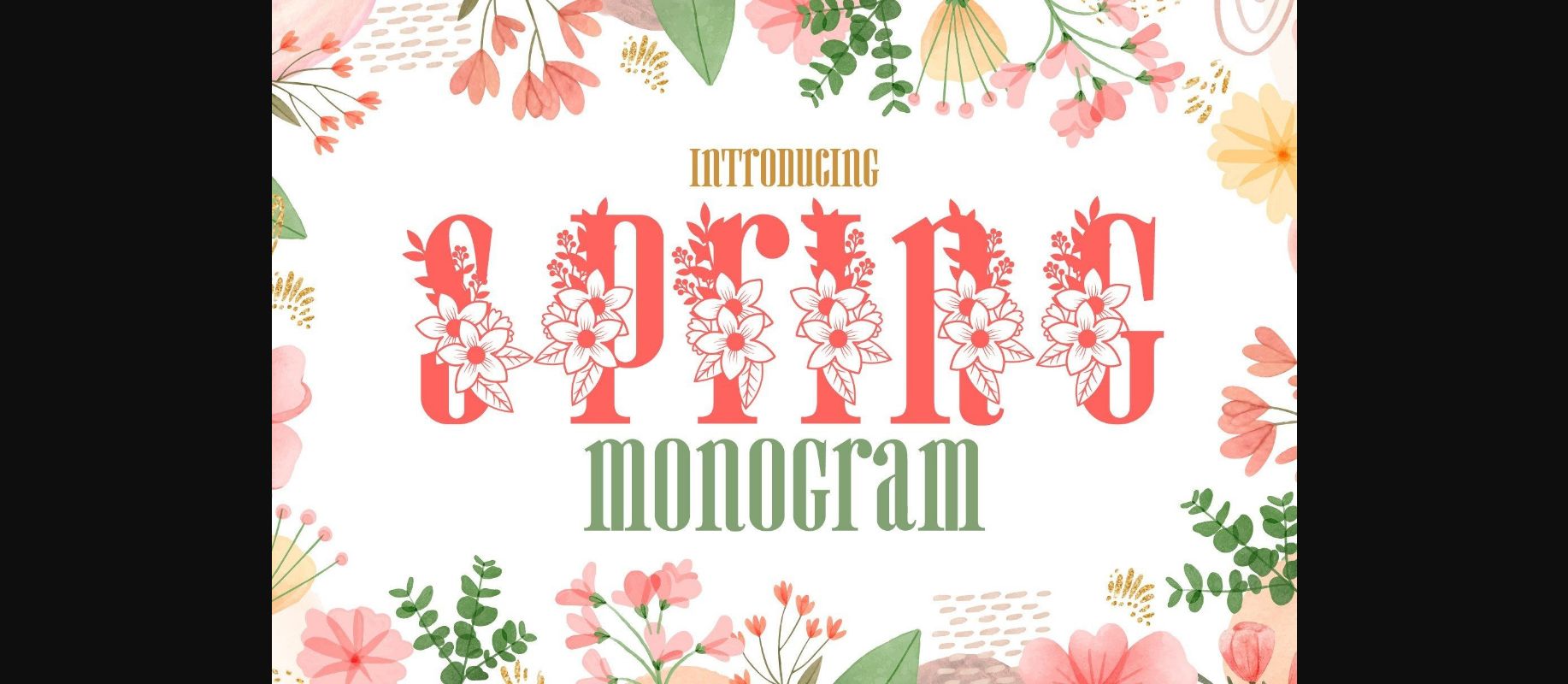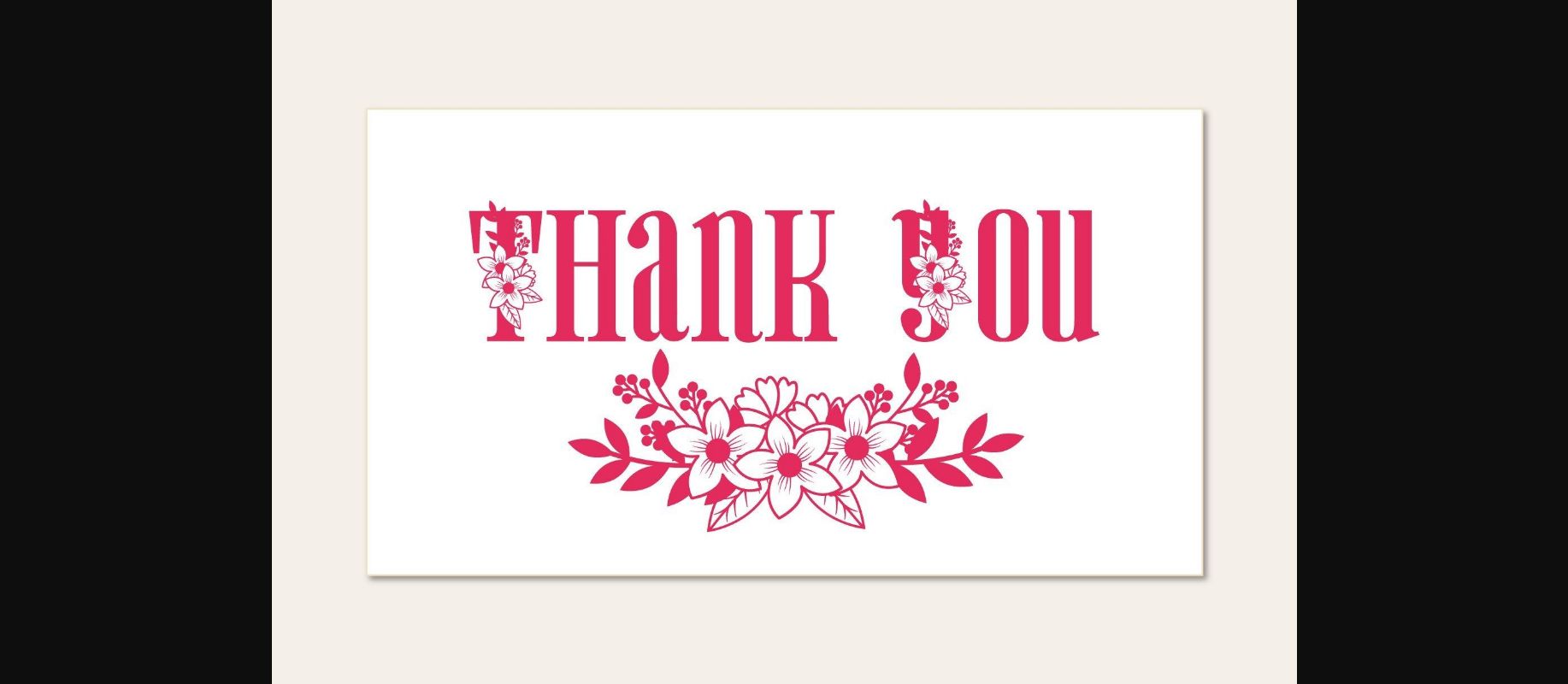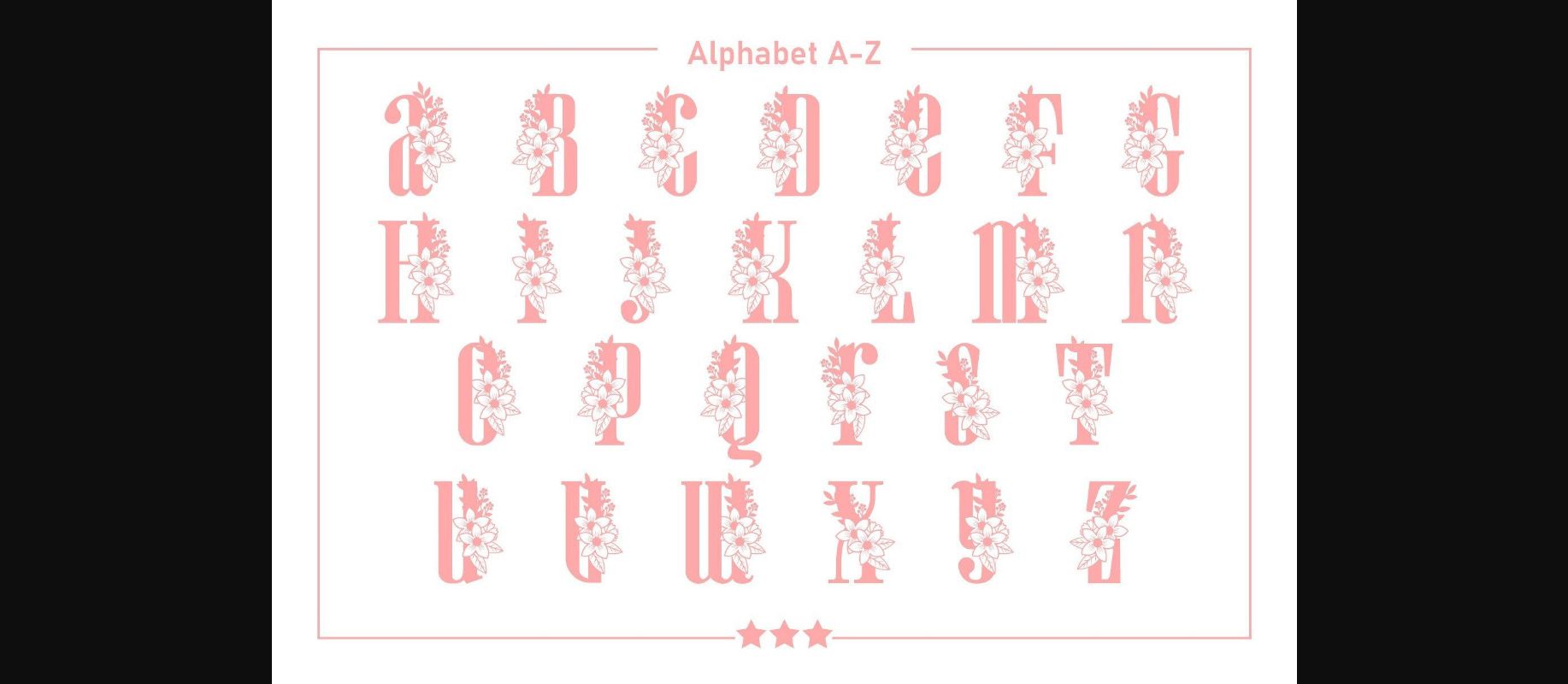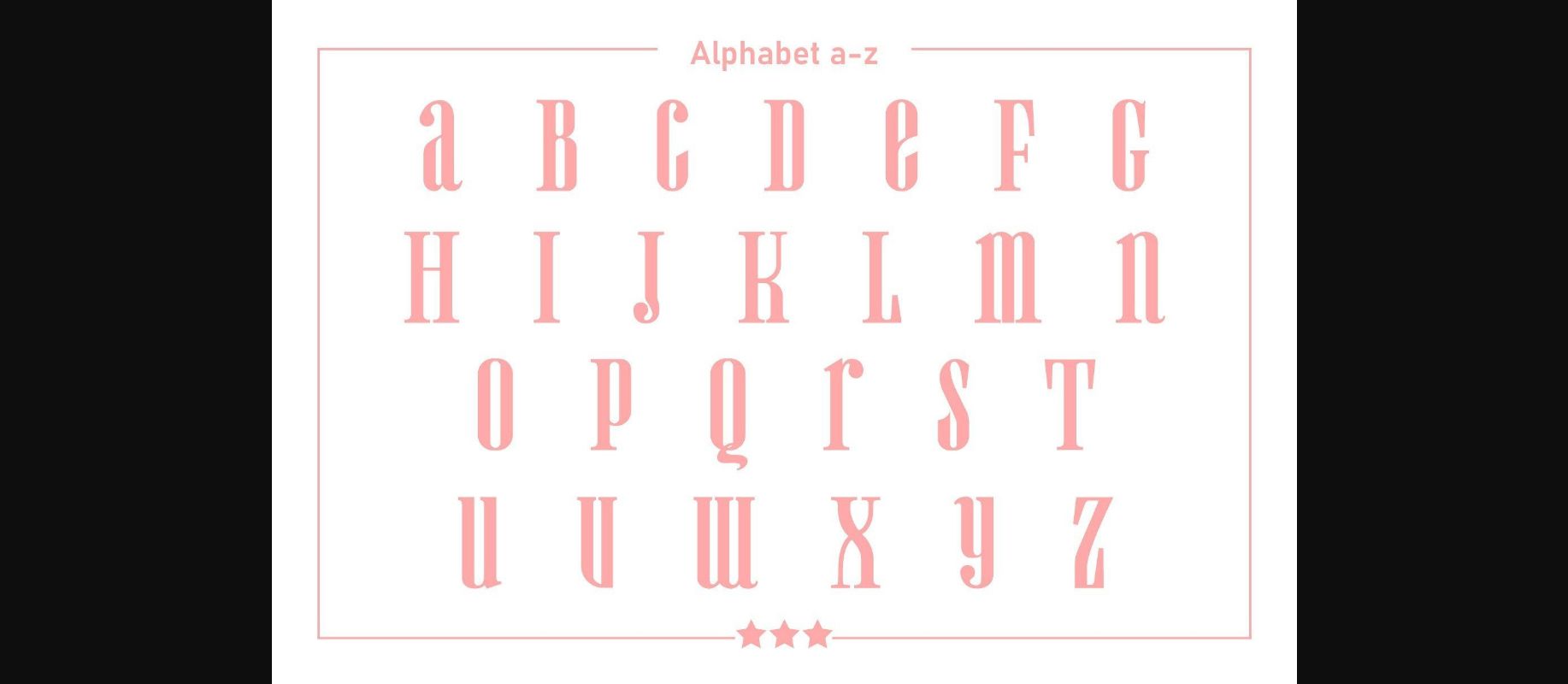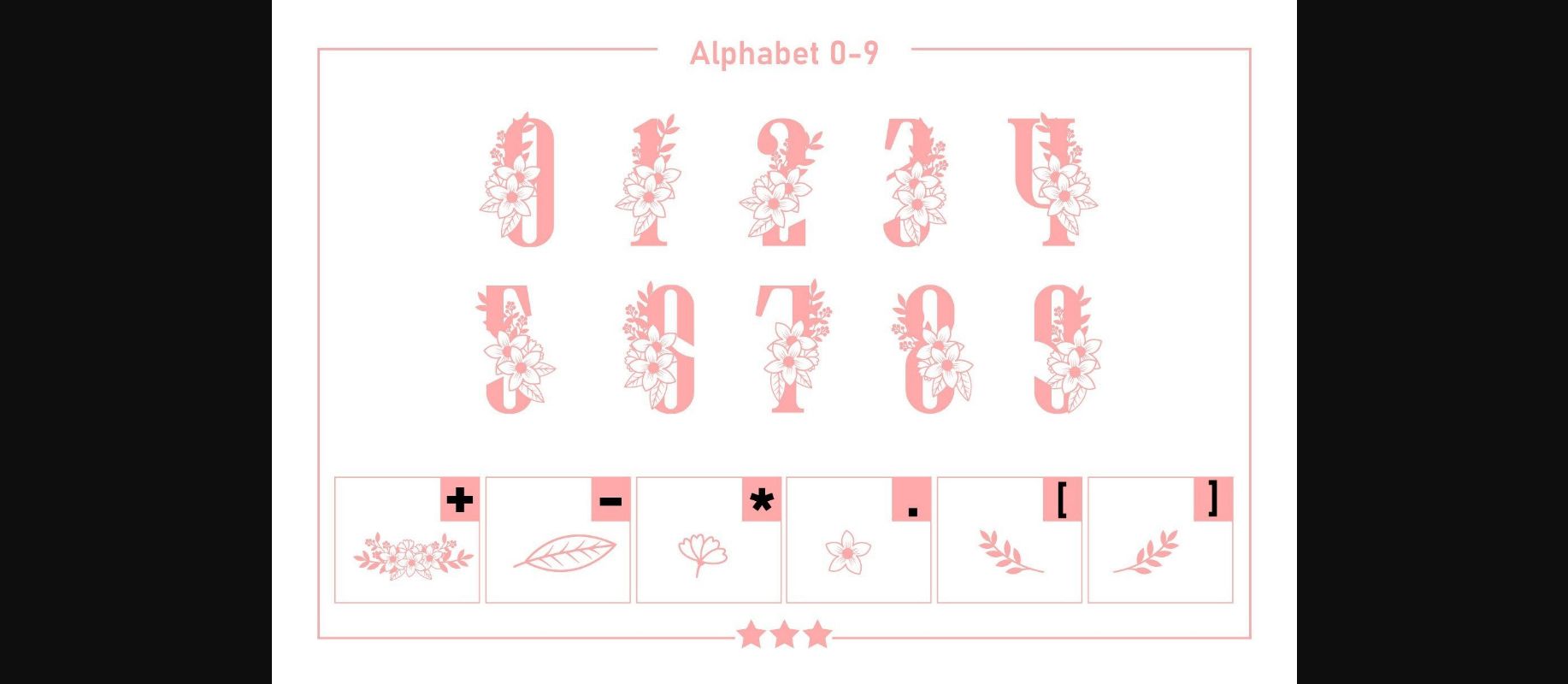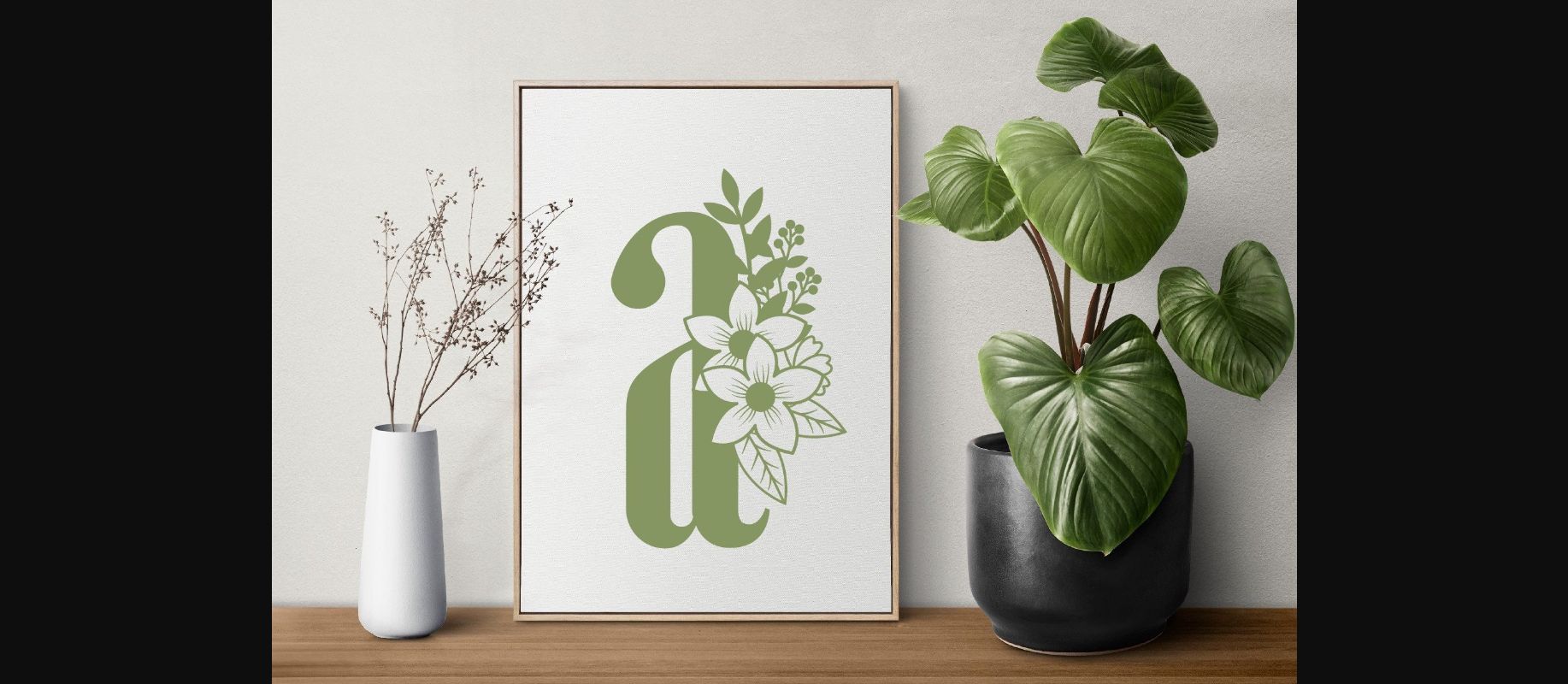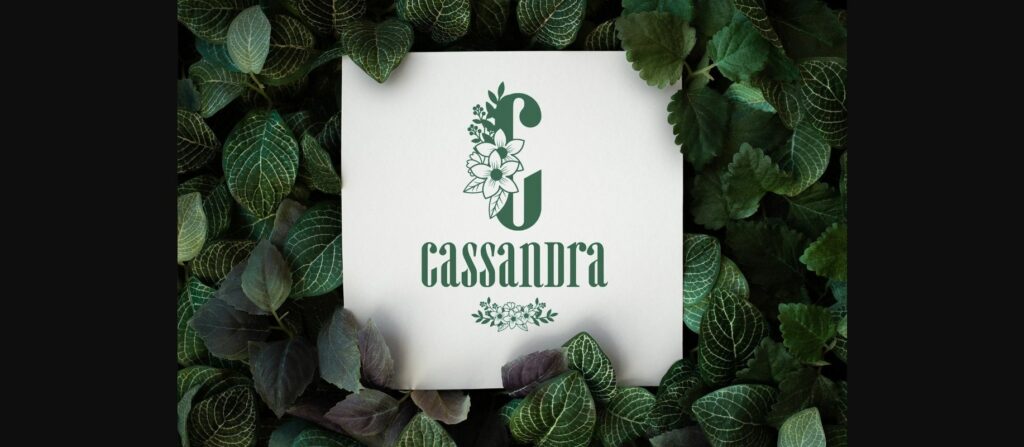
Spring Monogram Font
About Spring Monogram Font
Spring Monogram is a meticulously designed decorative font. Fall in love with its authentic feel and use it to create gorgeous invitations, beautiful stationary art, eye-catching social media posts, and cute greeting cards.